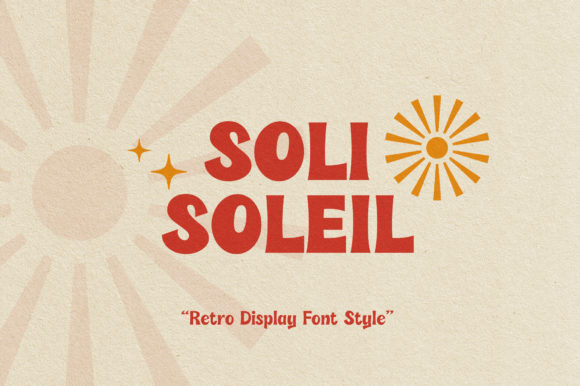
Journey into the realm of artistic expression with Soli Soleil, the spirited and whimsical display font that ignites creativity with every stroke. As a member of the display font family, Soli Soleil possesses an enchanting allure that elevates your designs to extraordinary heights.
Immerse yourself in the playful charm of Soli Soleil, a font designed to awaken imagination and captivate hearts. Its retro-inspired style dances across your screens and print media, infusing your projects with a touch of nostalgia and timeless elegance. Let Soli Soleil be your muse as you craft stickers, branding, posters, quotes, banners, t-shirts, Instagram posts, and more.
With Soli Soleil at your fingertips, you hold the power to unlock a realm of visual delight. Its captivating curves and cheerful demeanor evoke a sense of joy and lightheartedness, leaving a lasting impression on your audience. Soli Soleil invites you to embark on a creative journey where boundaries are blurred, and imagination reigns supreme.
Welcome to the world of Soli Soleil, where fonts transcend mere letters and become expressions of art. Its versatility knows no bounds, adapting seamlessly to a myriad of projects and design styles. Whether you're a seasoned designer or just starting your creative voyage, Soli Soleil is your trusted companion, guiding you to new horizons of visual artistry.
Unleash the power of Soli Soleil and witness the transformation of your designs. Its minimalist essence complements your projects with a clean and refined aesthetic, allowing your message to shine through with unparalleled clarity. Join the creative revolution and let Soli Soleil ignite your passion for design.